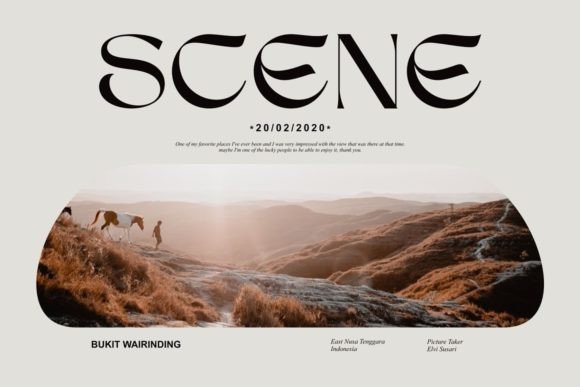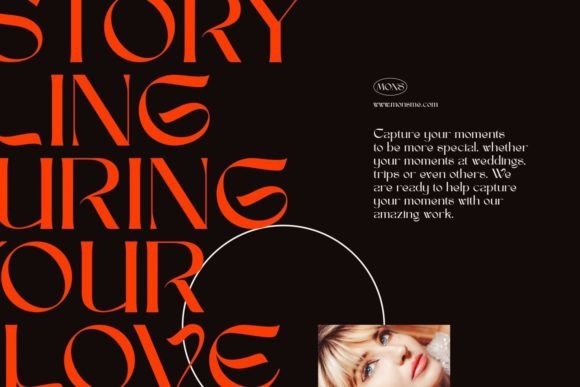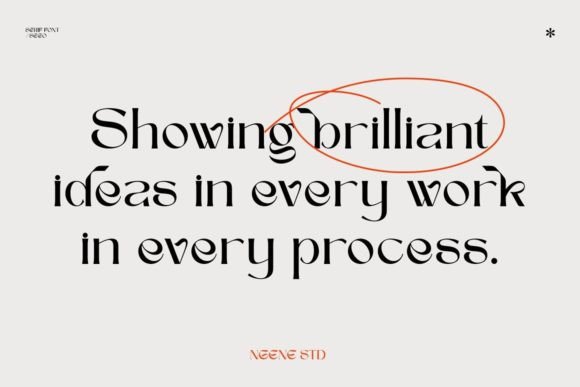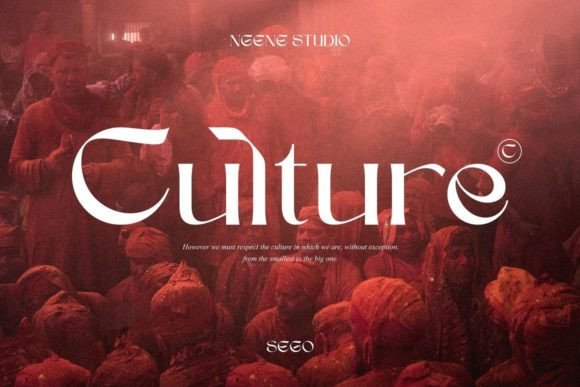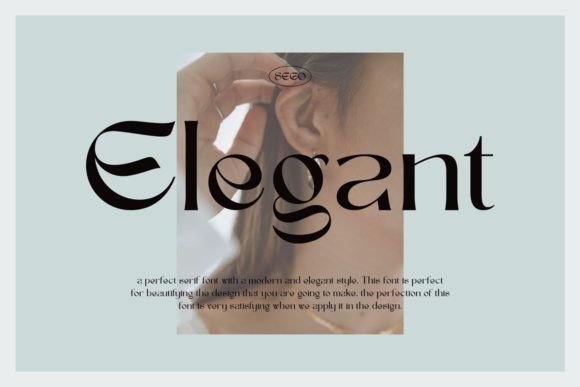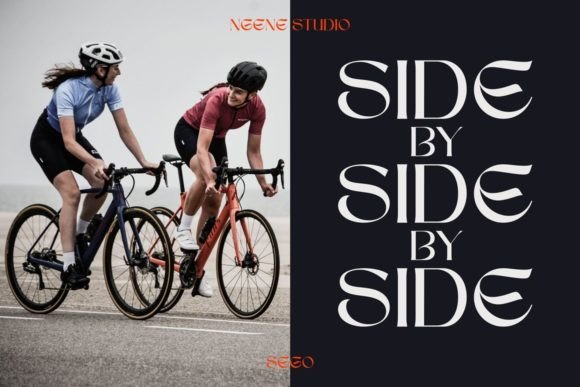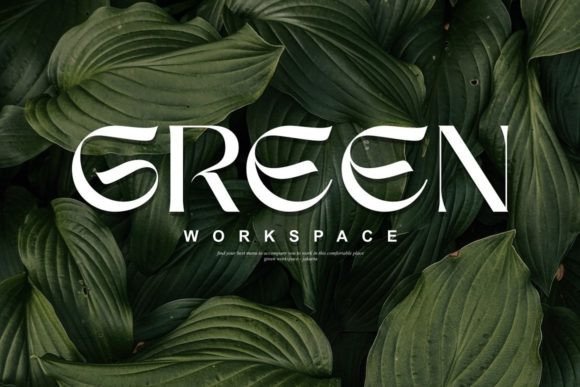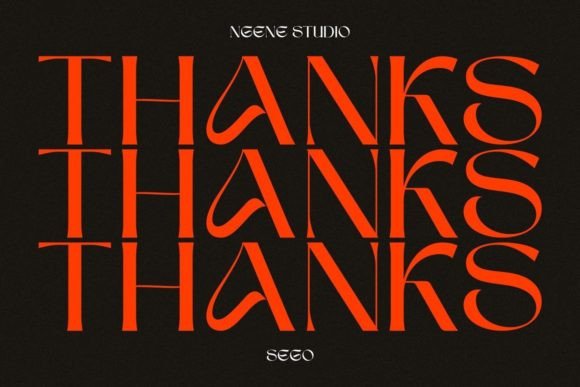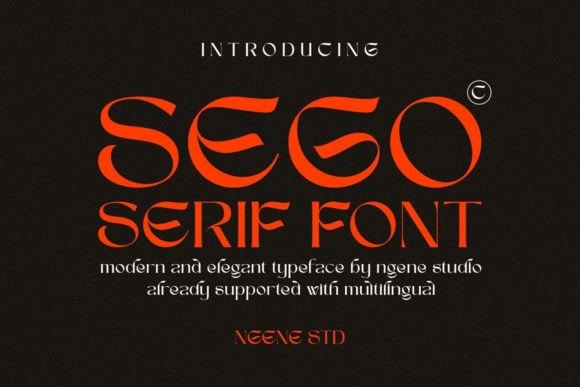
Sego Font
Sego is a stylish, uniquely-shaped serif font. No matter the topic, this font will be an incredible asset to your fonts’ library, as it has the potential to elevate any creation.